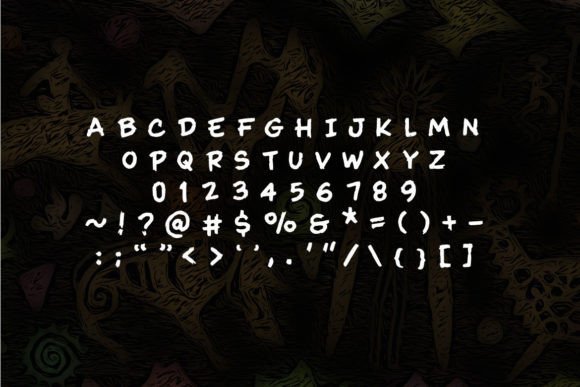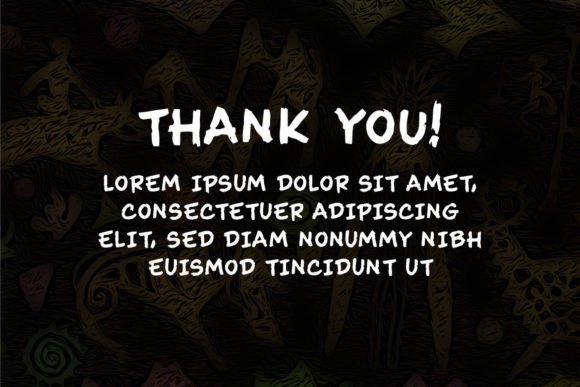
Introducing Baheula Font: A Timeless Display Font with Ancient Charm
In the world of typography, fonts play a crucial role in conveying the tone and aesthetic of a project. For designers and crafters looking for a font that exudes an old and ancient look, Baheula Font is an excellent choice. This display font is perfect for a wide range of projects, including music covers, movie titles, book titles, magazines, posters, advertisements, social media content, logos, and many more.
The Unique Characteristics of Baheula Font
Baheula Font boasts a distinctive, vintage look that sets it apart from other fonts. Its ancient charm is reminiscent of traditional typography, making it an ideal choice for projects that require a classic, timeless feel. The font’s unique characteristics include:
- Old-world aesthetic: Baheula Font features a classic, distressed look that gives it an authentic, ancient feel.
- High legibility: Despite its ornate design, Baheula Font remains highly legible, making it suitable for use in a variety of contexts.
- Versatility: This display font can be used for both headlines and body text, making it a versatile addition to any design project.
Baheula Font is designed to add a touch of elegance and sophistication to any project. Its versatility makes it an excellent choice for a wide range of creative endeavors, including:
- Music covers: Add a vintage touch to your music album covers with Baheula Font.
- Movie titles: Create eye-catching movie titles that evoke a sense of nostalgia and classic Hollywood glamour.
- Book titles: Use Baheula Font to create stunning book titles that reflect the tone and aesthetic of your literary work.
- Magazines: Add a touch of sophistication to your magazine designs with Baheula Font.
- Posters: Create striking posters that grab attention with Baheula Font.
- Advertisements: Use Baheula Font to create eye-catching advertisements that stand out from the crowd.
- Social media content: Add a touch of elegance to your social media posts with Baheula Font.
- Logos: Create a lasting impression with Baheula Font, perfect for logos that require a classic, timeless look.
Why Choose Baheula Font?
With so many fonts available, why choose Baheula Font? Here are just a few reasons why designers and crafters love this display font:
- Unique aesthetic: Baheula Font offers a distinctive, vintage look that’s hard to find in other fonts.
- High-quality design: Baheula Font is designed with precision and attention to detail, ensuring a high-quality finish.
Tips for Using Baheula Font
To get the most out of Baheula Font, here are a few tips to keep in mind:
- Use it sparingly: Baheula Font is a display font, so use it sparingly to create a lasting impression.
- Experiment with colors: Baheula Font looks great in a variety of colors, so experiment to find the perfect hue for your project.
- Pair it with other fonts: Baheula Font pairs well with other fonts, so don’t be afraid to experiment with different combinations.
Baheula Font is a timeless display font that offers a unique, ancient look perfect for a wide range of creative projects. With its high legibility, versatility, and distinctive aesthetic, Baheula Font is an excellent choice for designers and crafters looking to add a touch of elegance and sophistication to their work. Whether you’re creating music covers, movie titles, book titles, or social media content, Baheula Font is sure to make a lasting impression.